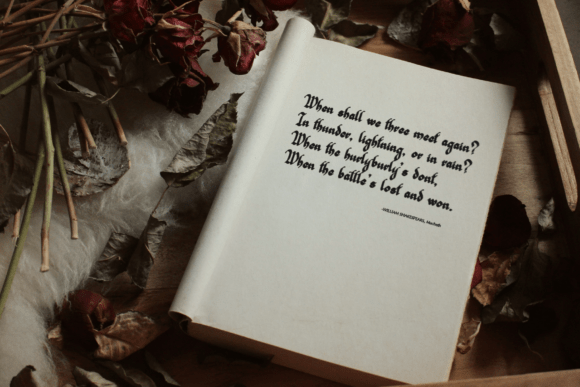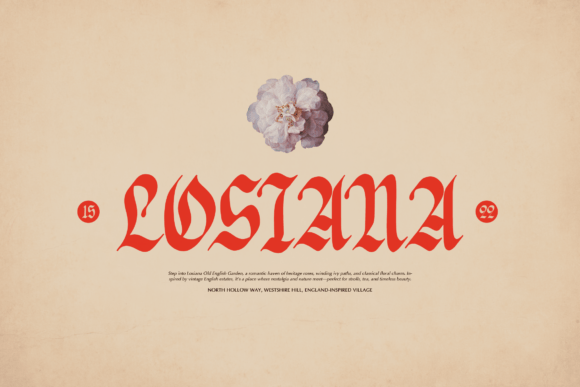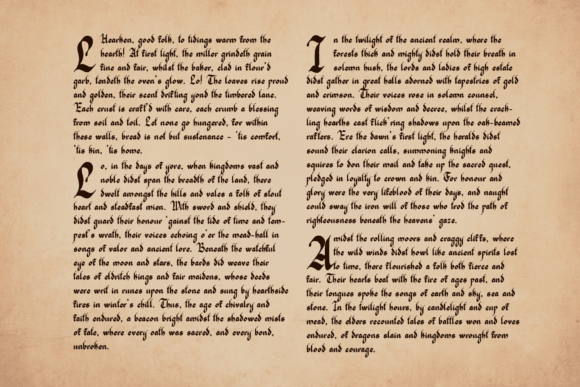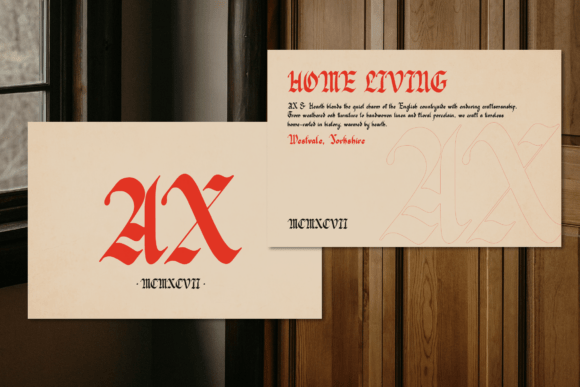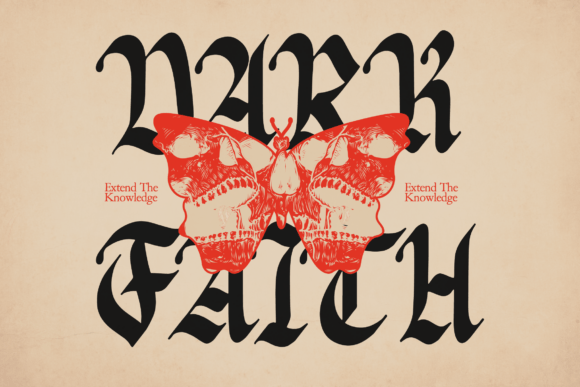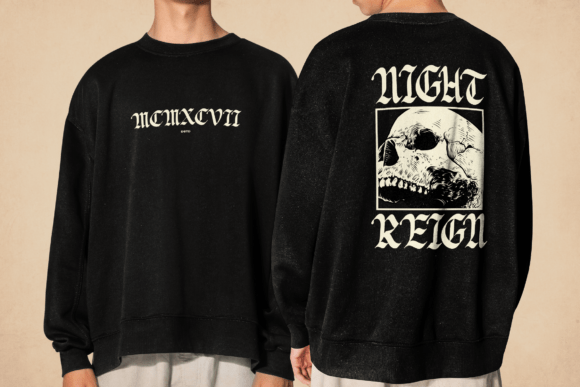
Braffyon Font: The Ultimate Blackletter Typeface for Designers and Crafters
Are you a designer or crafter looking for a unique and versatile font to elevate your projects? Look no further than Braffyon Font, a stunning blackletter typeface that’s perfect for a wide range of applications. From logos and branding projects to homeware designs, product packaging, and more, Braffyon Font is the ideal choice for anyone seeking to add a touch of elegance and sophistication to their work.
What is Braffyon Font?
Braffyon Font is a beautifully crafted blackletter typeface that’s designed to add a touch of luxury and refinement to any project. With its intricate and ornate lettering, Braffyon Font is perfect for designers and crafters who want to create unique and eye-catching designs that stand out from the crowd. Whether you’re working on a logo, brochure, or product packaging, Braffyon Font is sure to make a lasting impression.
What Projects is Braffyon Font Suitable For?
Braffyon Font is an incredibly versatile typeface that can be used for a wide range of projects, including:
- Logos and branding projects: Create a lasting impression with a custom logo that showcases your brand’s personality and style.
- Homeware designs: Add a touch of elegance to your home decor with Braffyon Font, perfect for designing custom wall art, throw pillows, and more.
- Product packaging: Stand out on store shelves with beautifully designed packaging that features Braffyon Font.
- Mugs and ceramics: Create one-of-a-kind mugs, plates, and other ceramics with Braffyon Font.
- Quotes and posters: Design inspiring quotes and posters that feature Braffyon Font’s stunning lettering.
- Shopping bags and t-shirts: Create custom shopping bags and t-shirts that showcase your brand’s personality and style.
- Book covers and name cards: Design professional-looking book covers and name cards with Braffyon Font.
- Invitation cards and greeting cards: Create beautiful and elegant invitation cards and greeting cards with Braffyon Font.
- Labels and photography: Use Braffyon Font to create custom labels and watermarks for your photography projects.
- Special events: Make your special events unforgettable with custom designs that feature Braffyon Font.
Why Choose Braffyon Font?
So why choose Braffyon Font for your next project? Here are just a few reasons why Braffyon Font stands out from the crowd:
- Unique and eye-catching design: Braffyon Font features a stunning blackletter design that’s sure to turn heads.
- Versatile and adaptable: Braffyon Font can be used for a wide range of projects, from logos and branding to homeware designs and product packaging.
- Elegant and sophisticated: Braffyon Font adds a touch of luxury and refinement to any project.